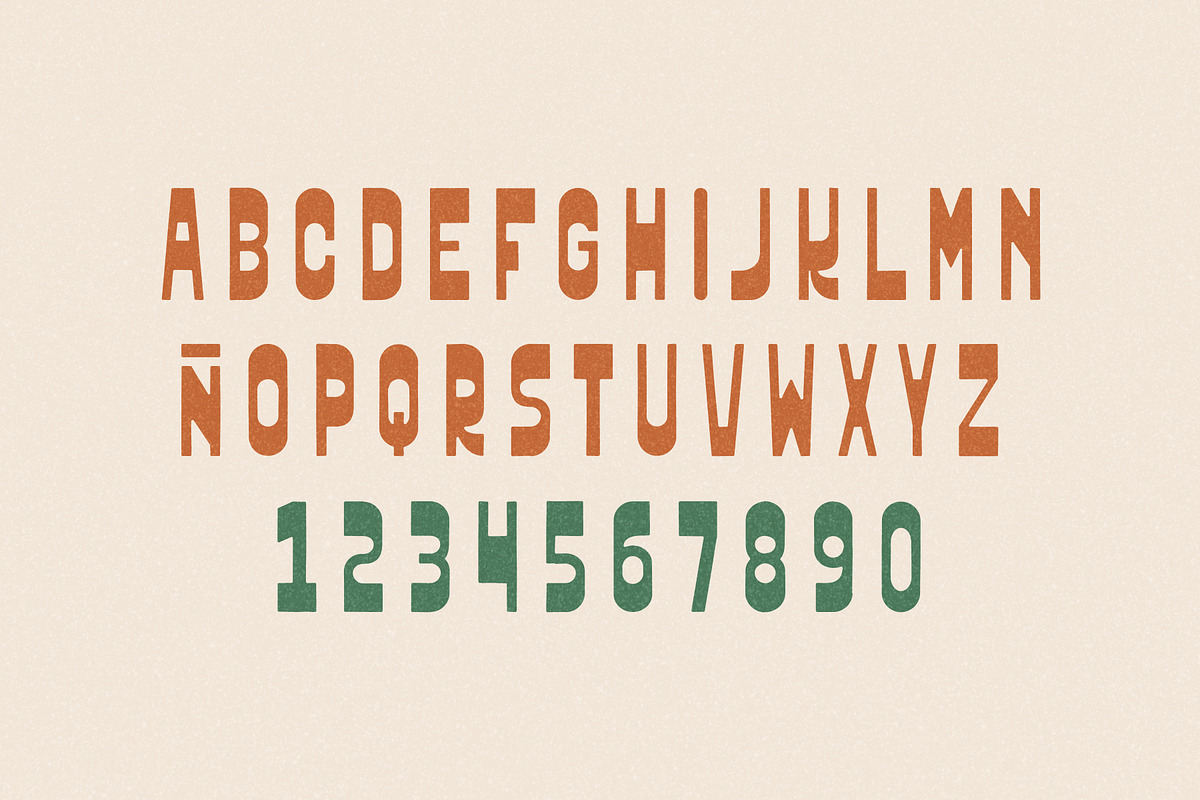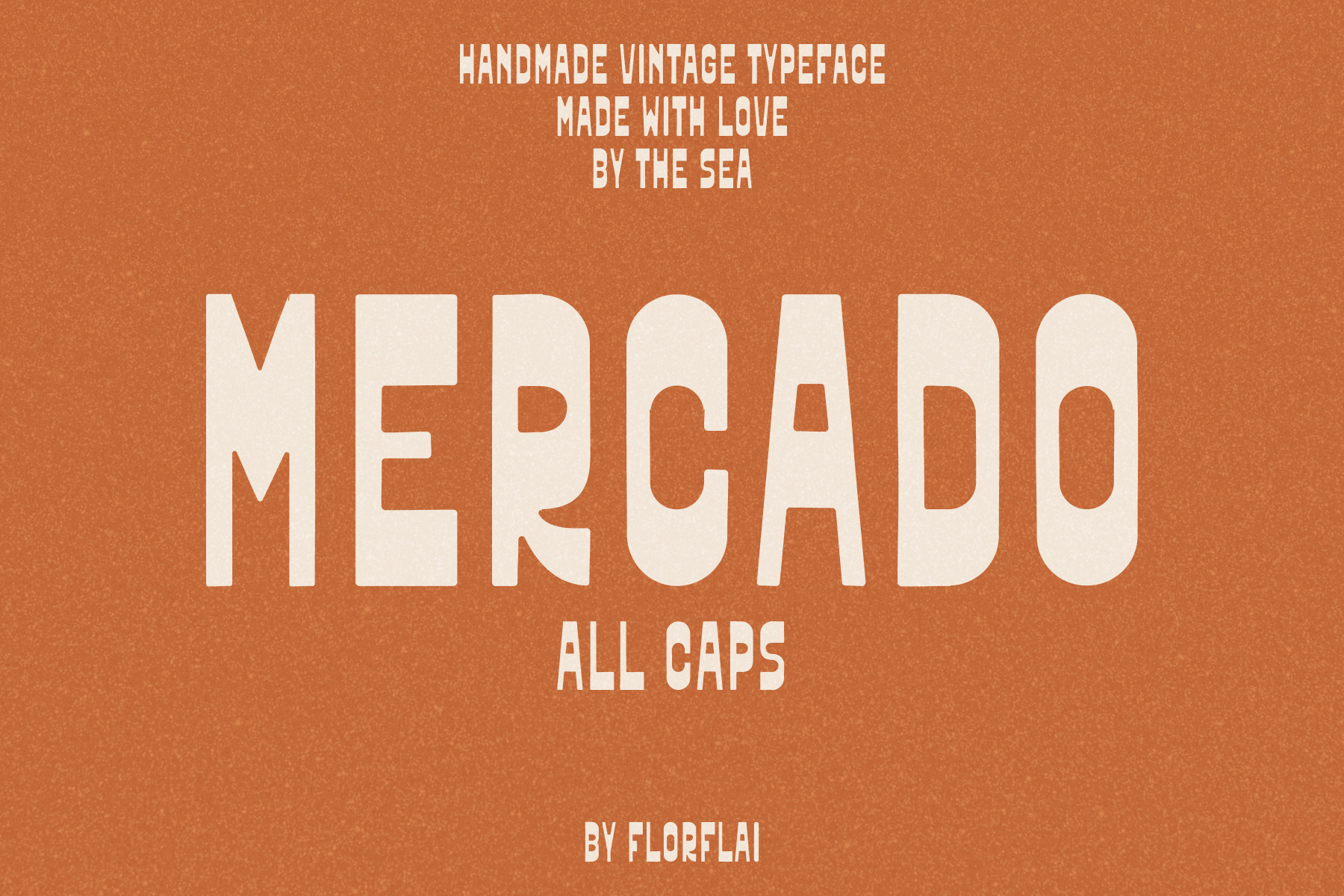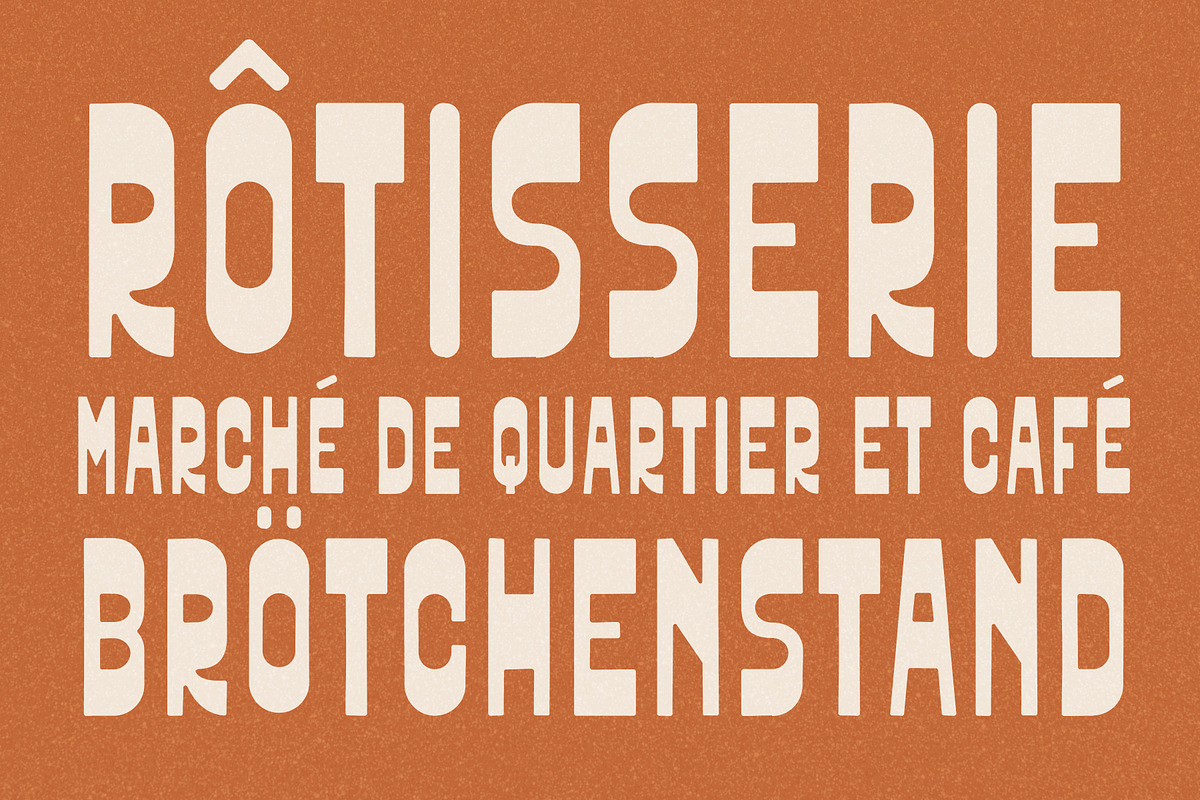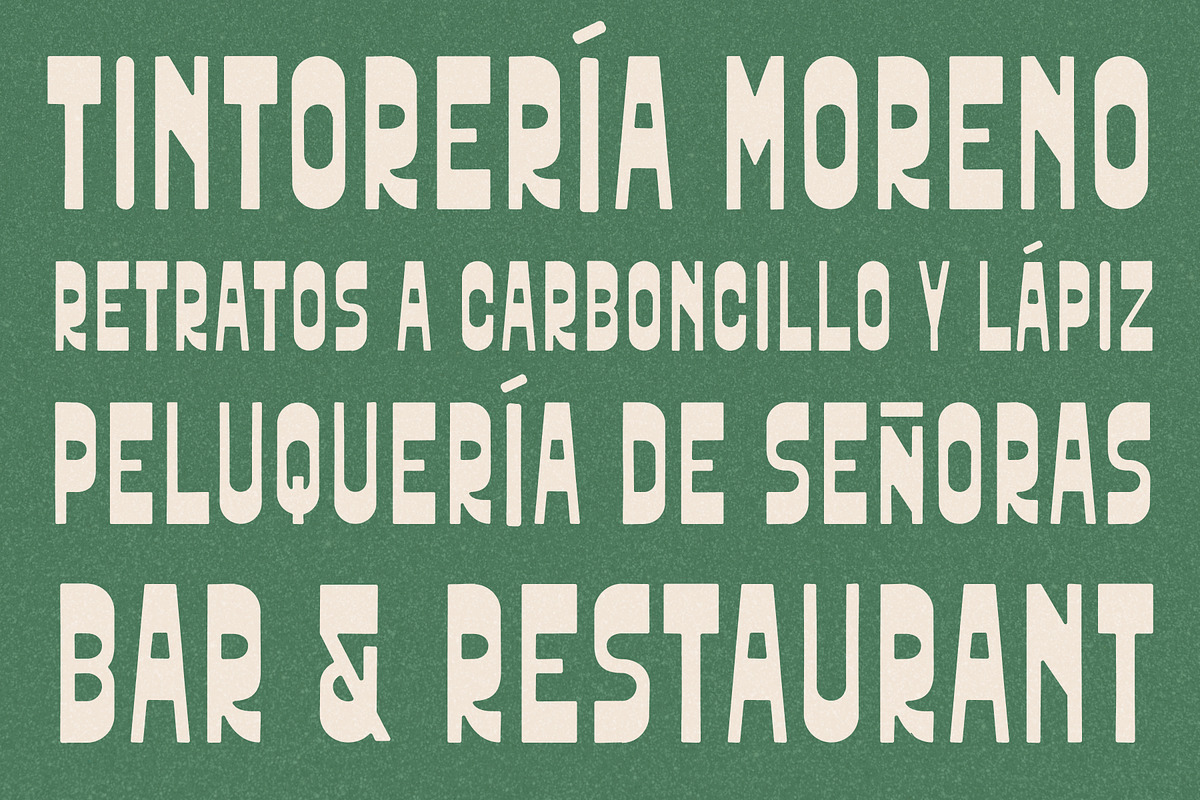
Mercado handmade font
Mercado was inspired by those old neighborhood businesses that seem to resist the passing of time. Every town still has a few, although there are fewer and fewer every year. Dry cleaners, hair salons, shoe repair shops, local bars, tiny stores with hand-painted signs…
I took inspiration from those vintage storefront letters made by sign painters, painted by hand with brushes and imperfect precision. While there are many different lettering styles, this time I wanted to focus on reverse contrast, a less common style with a very unique beauty and a surprisingly difficult balance when designing each letter.
Mercado is an all caps typeface designed for headlines, branding, packaging, posters, and projects that want to feel handmade while still standing apart.